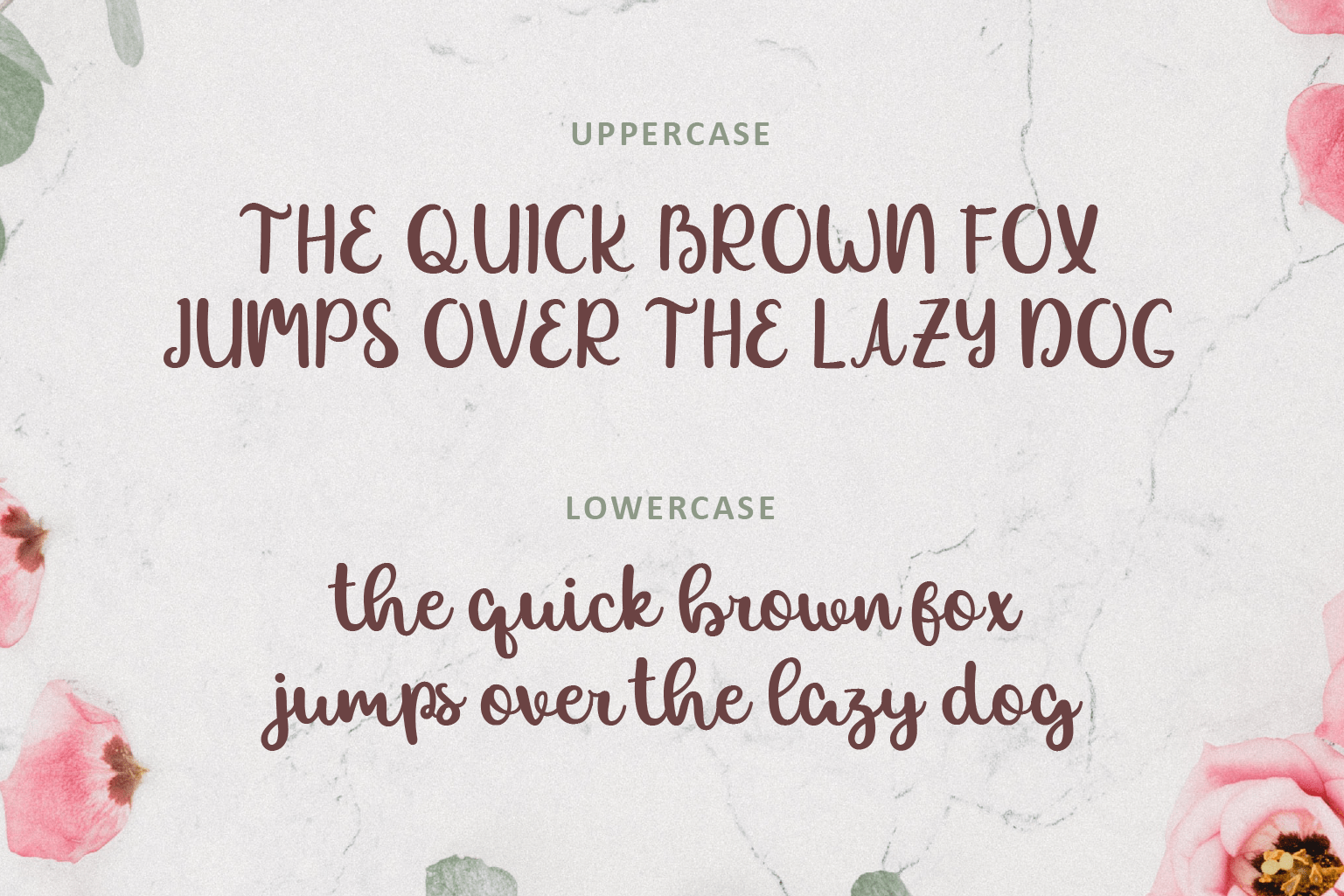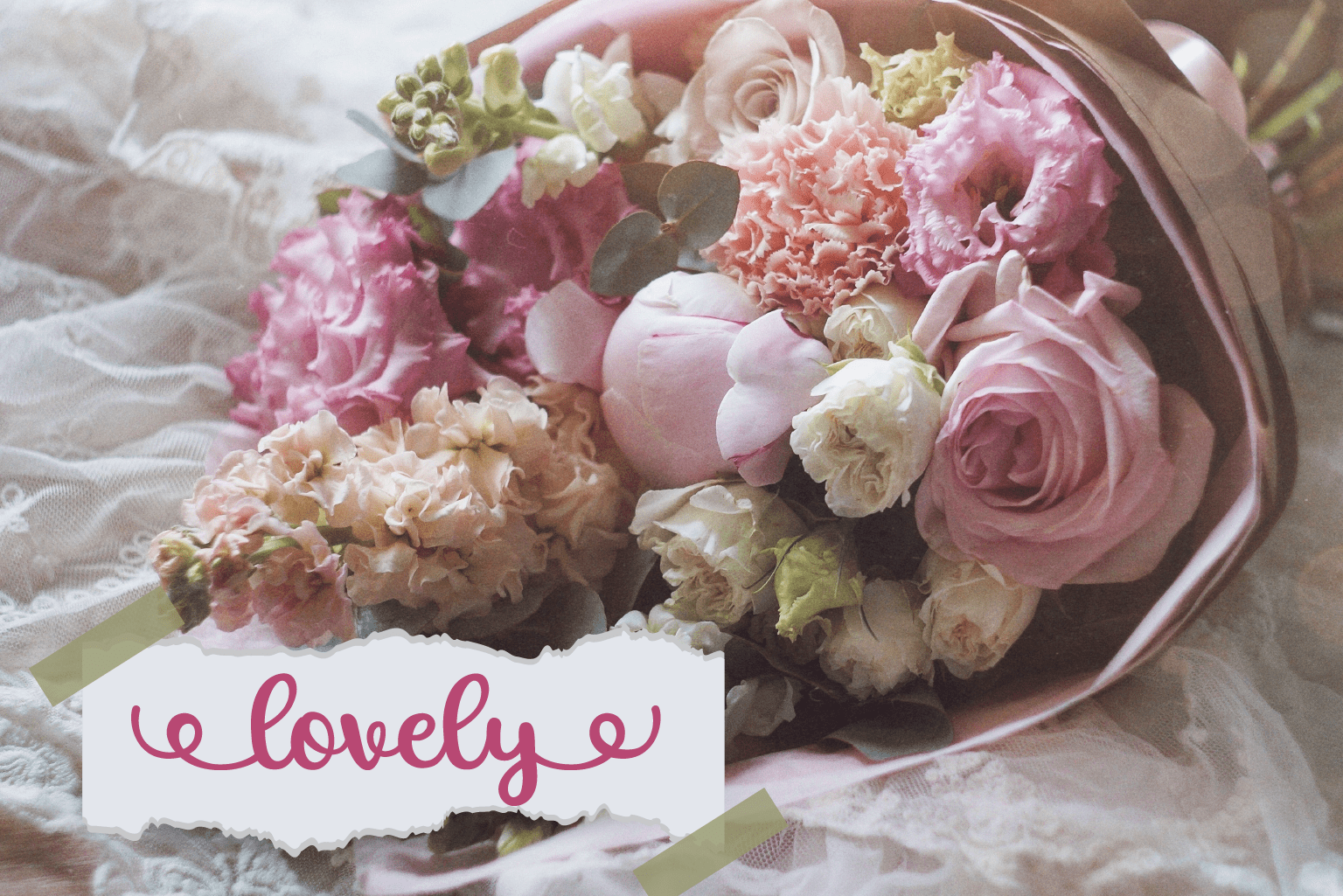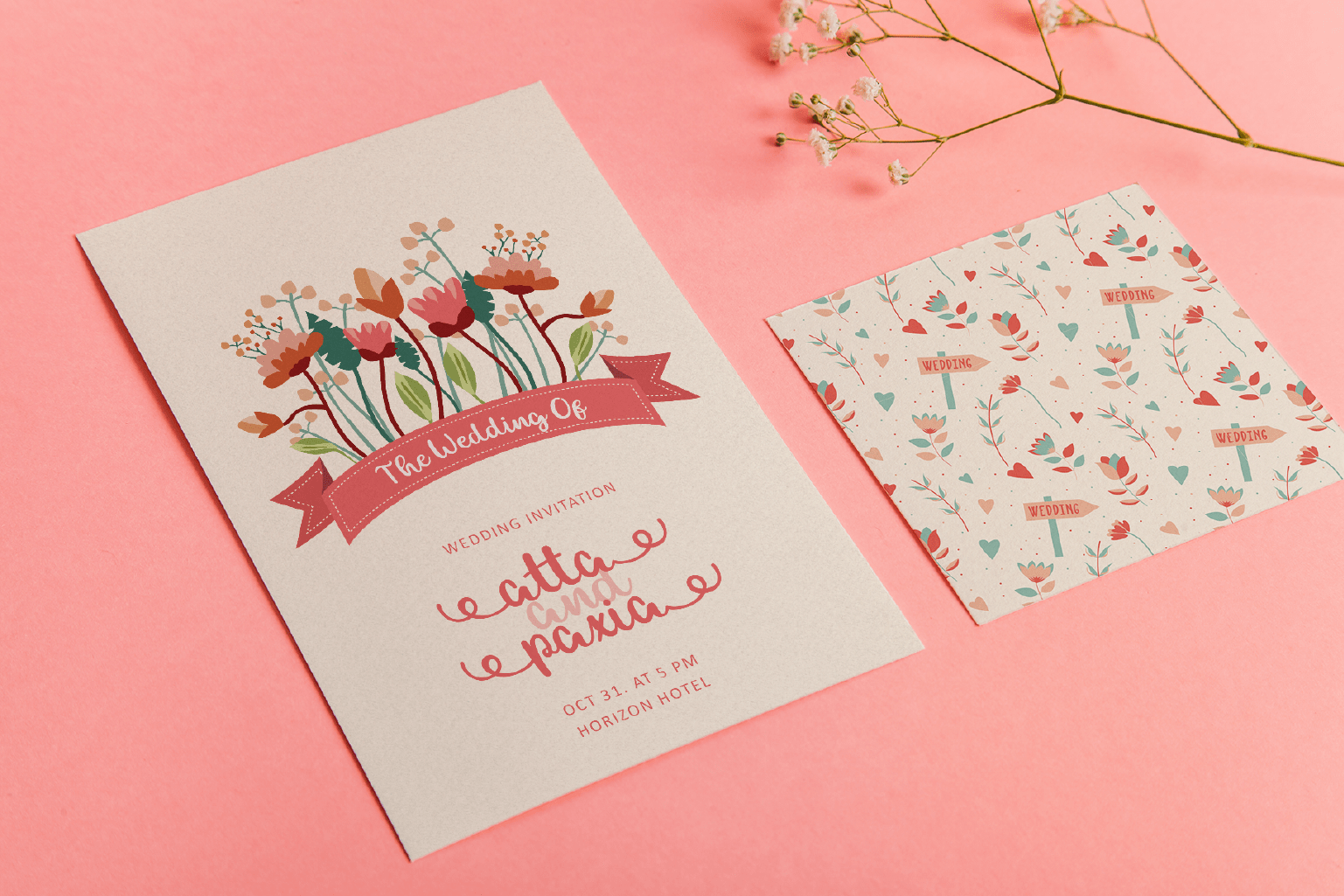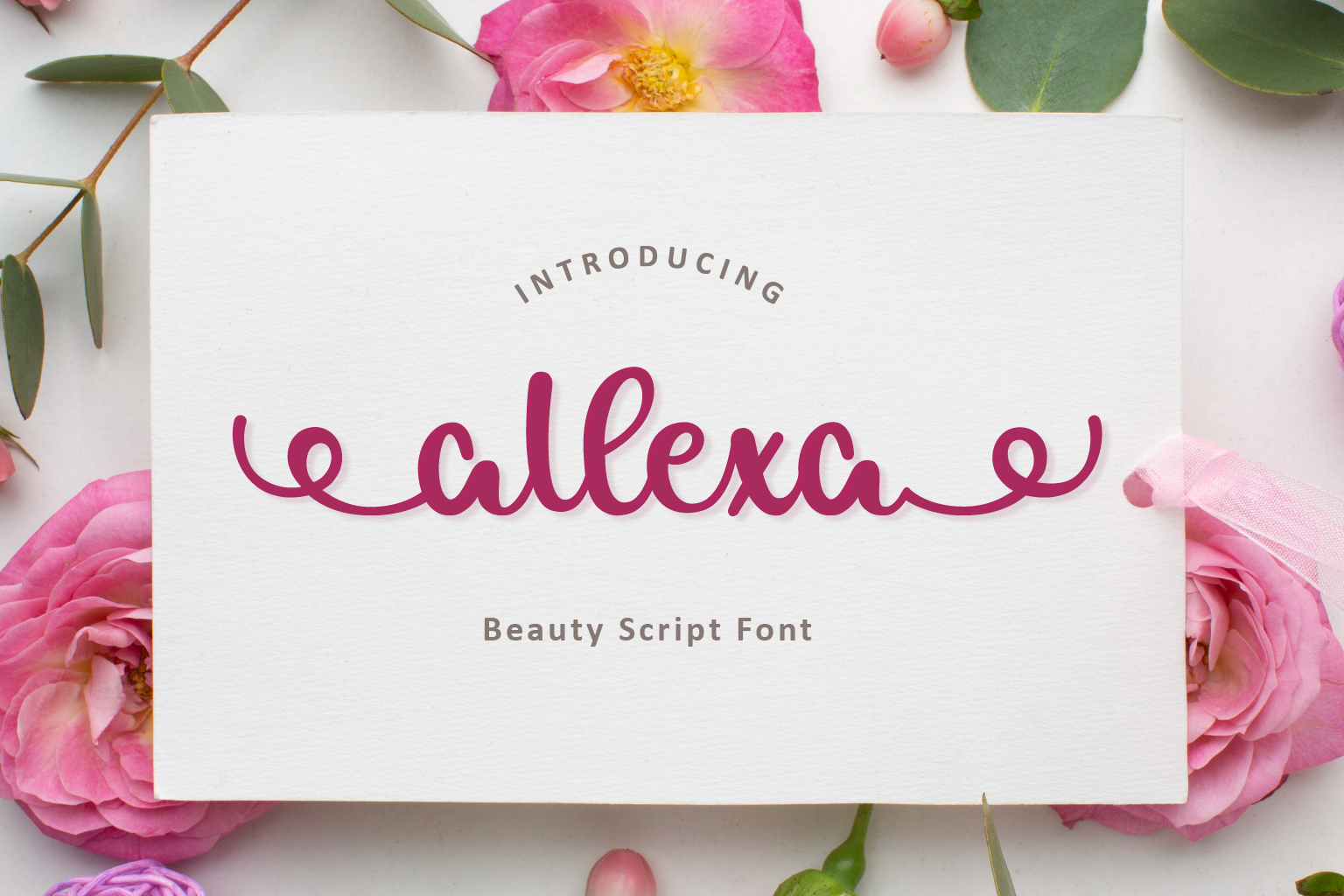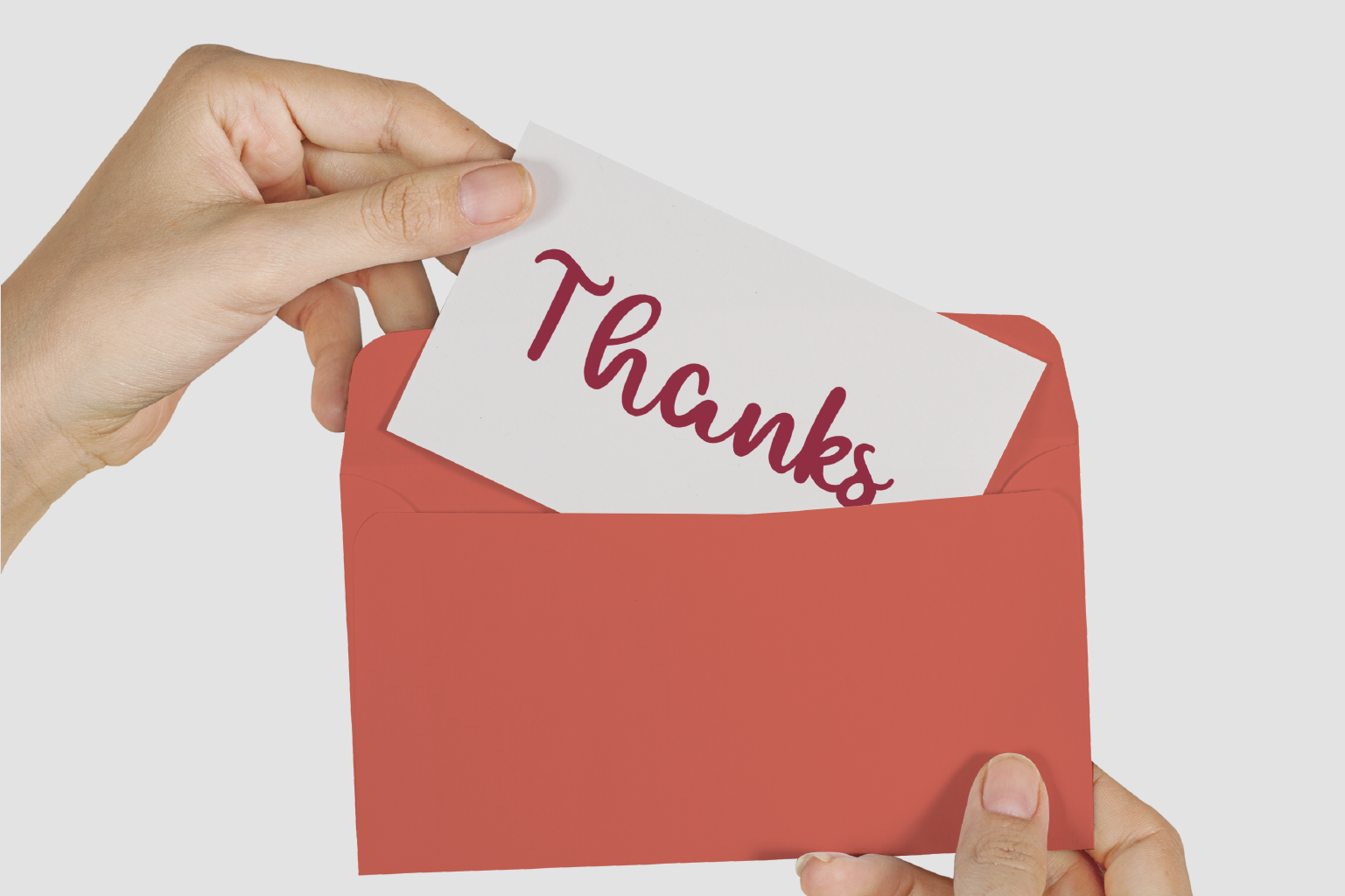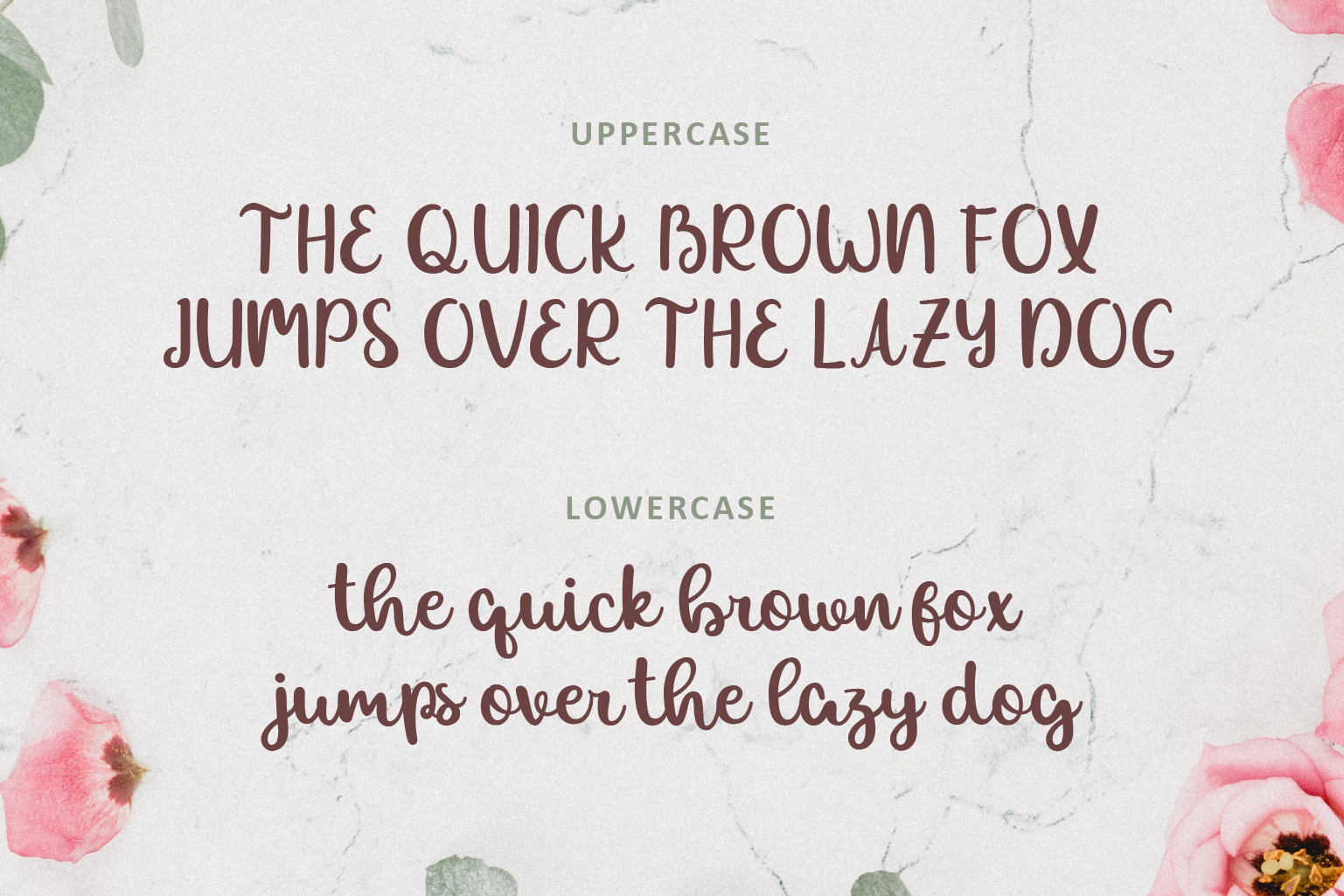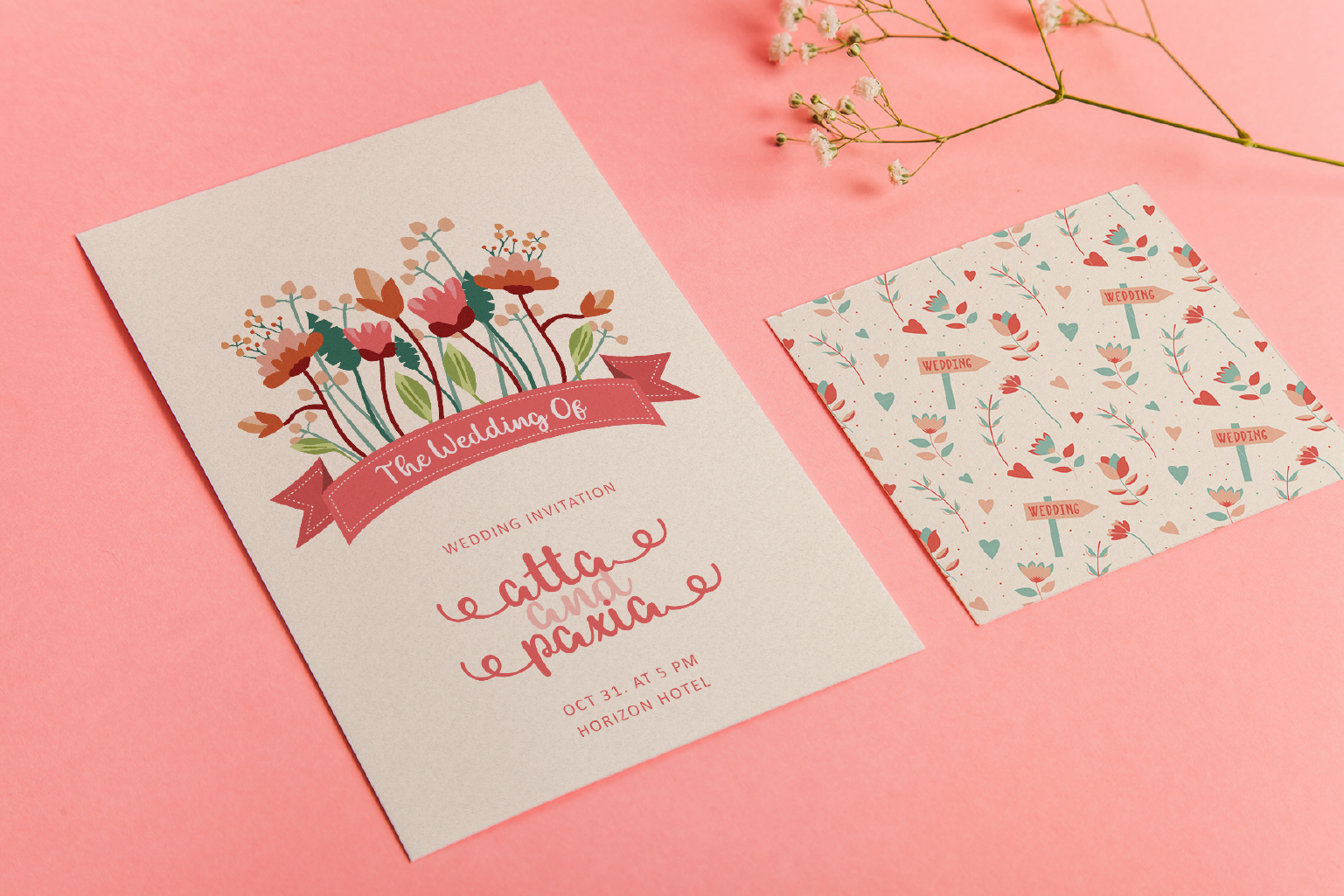
Allexa Script Font
This beautiful font was created with extra swash and ligatures. Would be perfect if you use it for a girly design theme, such as wedding invitations, quotes, titles or product mock ups.